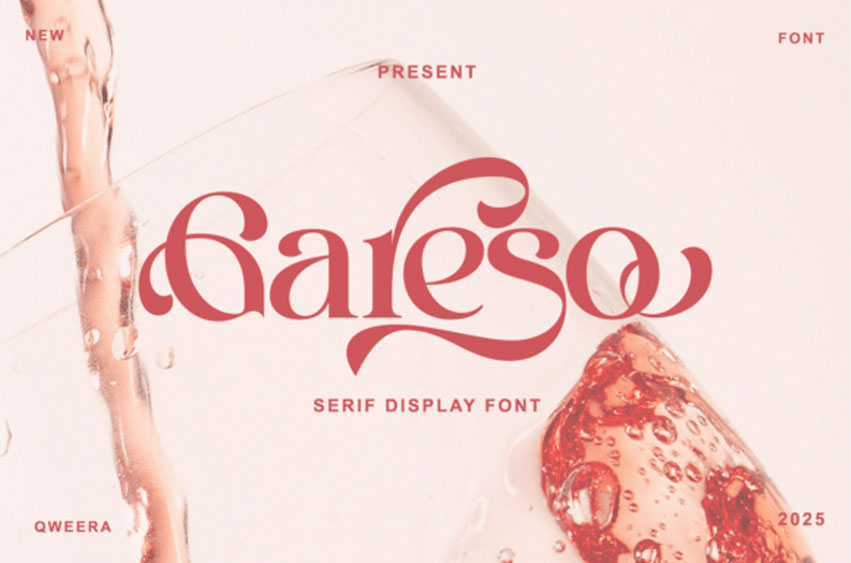
Gareso Font
Gareso Font is a bold and expressive serif display typeface that blends retro-glamour with contemporary curves.
This Gareso typeface features unique, bulbous terminals and dramatic transitions, making it an ideal choice for high-impact titles, editorial covers, and luxury product labels. The “chunky” yet refined nature of the Gareso font gives it a trendy, 1970s-inspired vibe that is currently dominating the world of fashion and interior design.
Whether you are creating a stand-out logo or a stylish social media banner, the Gafeso typeface ensures your brand feels bold, sophisticated, and ahead of the curve.